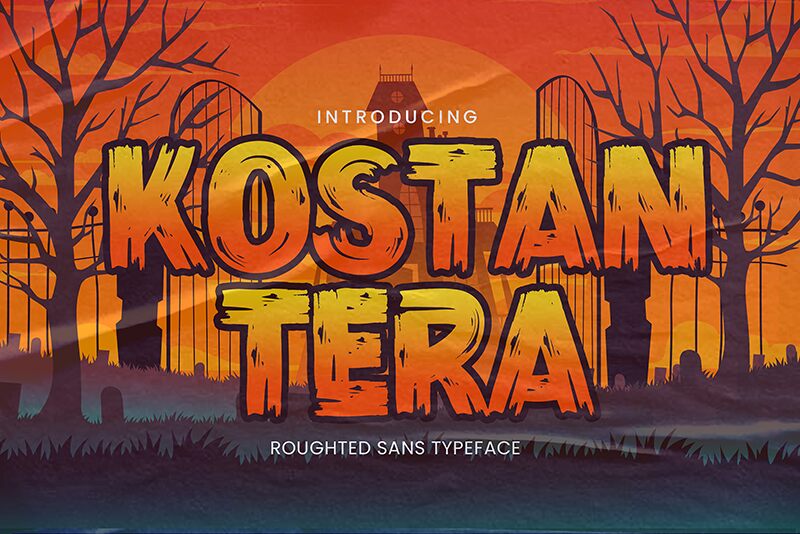
Kostantera
Kostantera, crafted by Gassstype, is not just a font-it's a declaration of bold creativity. With its extra-bold brush style, this typeface exudes a modern sensibility infused with the spontaneity of quick, casual strokes. Kostantera stands out for its 'Roughted Sans Typeface,' which brings a distinctive texture and dynamic to each character. Ideal for projects that demand an artistic yet assertive voice, this font shines in applications ranging from eye-catching posters and impactful branding to heartwarming greeting cards and personalized packaging.
Embrace the natural charm and strength of Kostantera to elevate your designs with an authentic hand-drawn feel that resonates with today's creative movement.